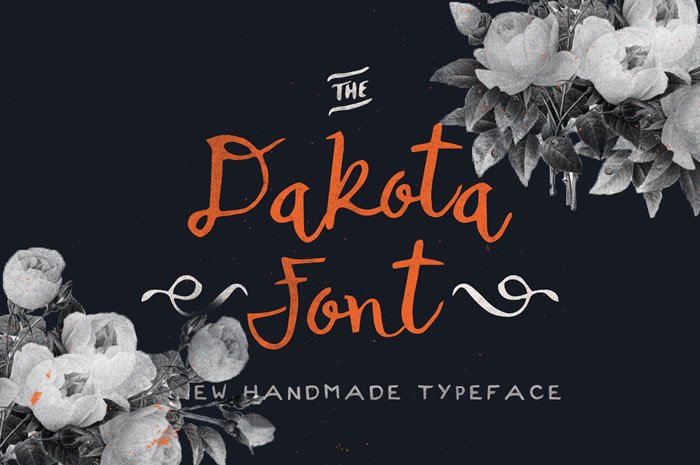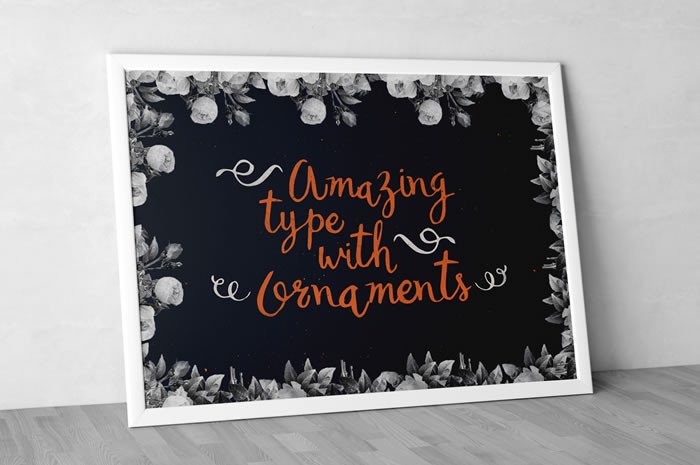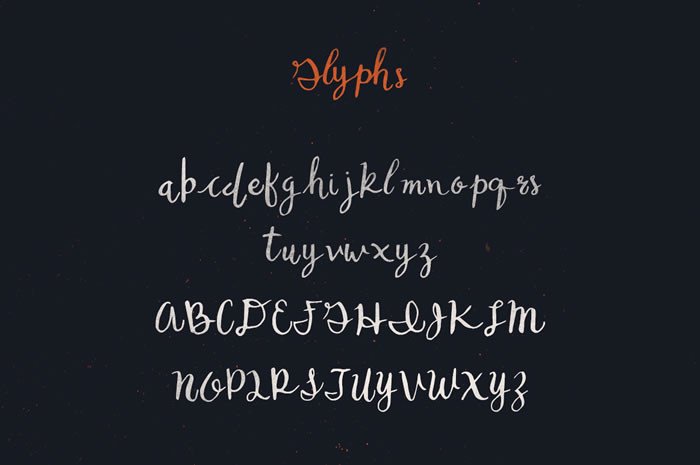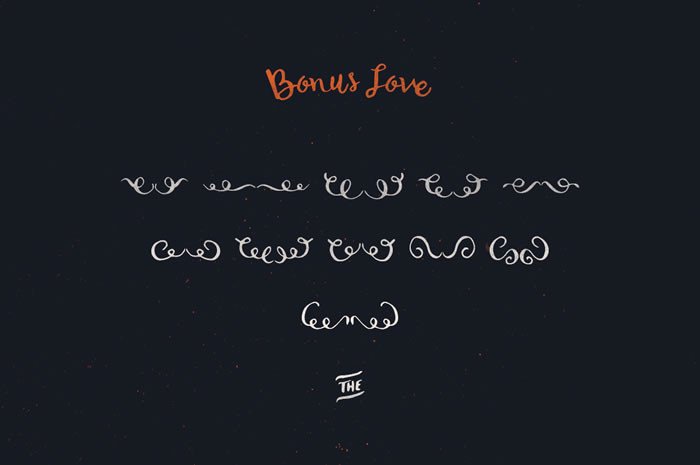
About Dakota Font
Dakota is a new handmade typeface and is very easy to play with. Dakota can be used perfectly for logo’s, invitations, posters, quotes, letterheads, birthdays and much more!